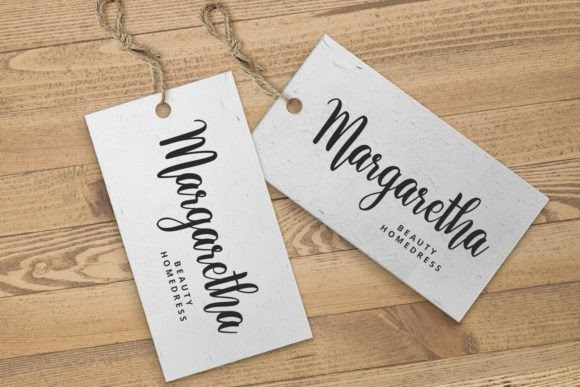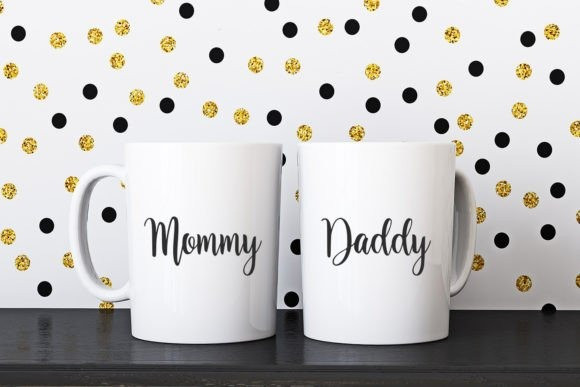
Aglonema Script Font
Aglonema Script Font is a simple and charming calligraphy font. It is great for t-shirt designs, quotes, weddings, mugs, tote bag designs, cards, social media, and any craft projects.